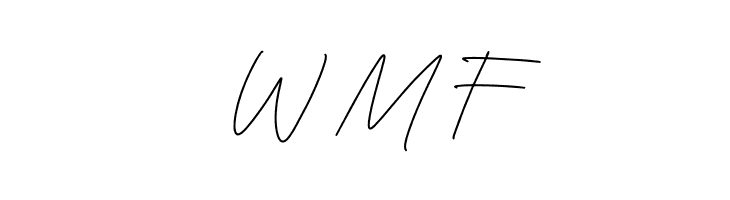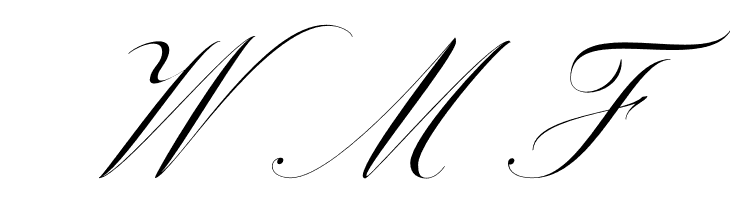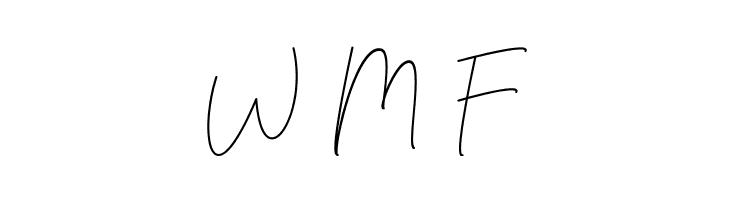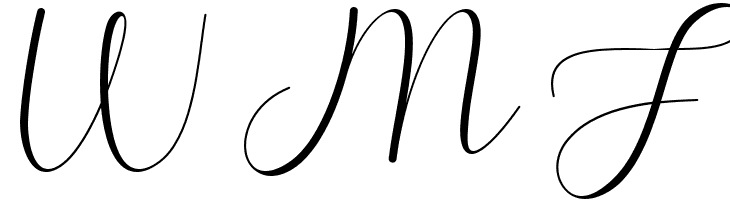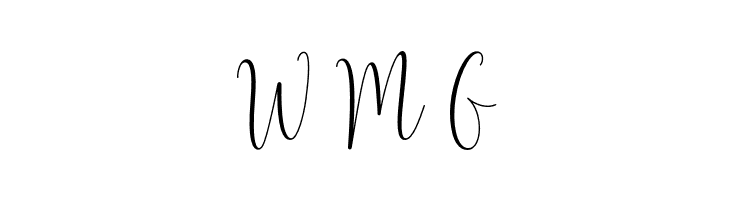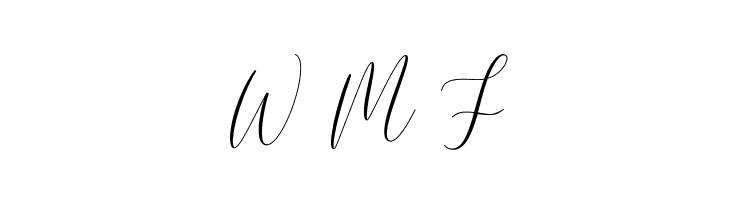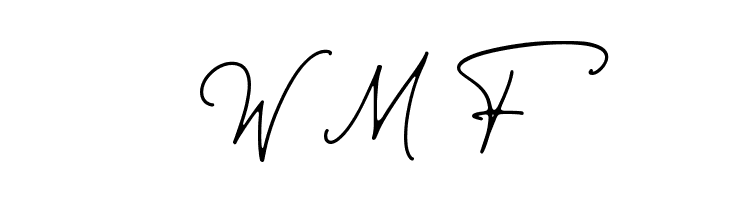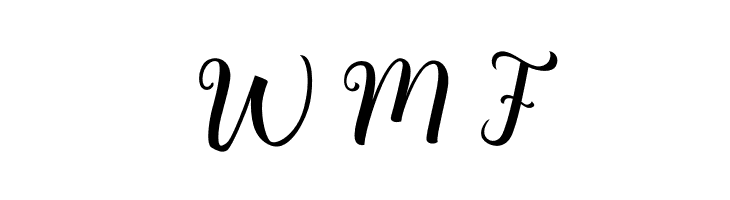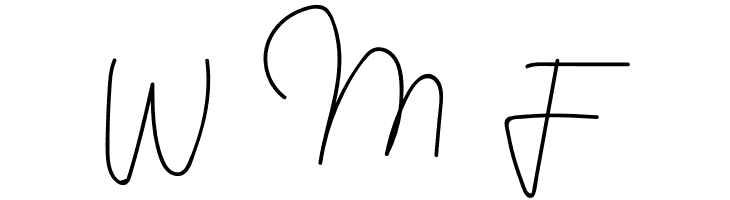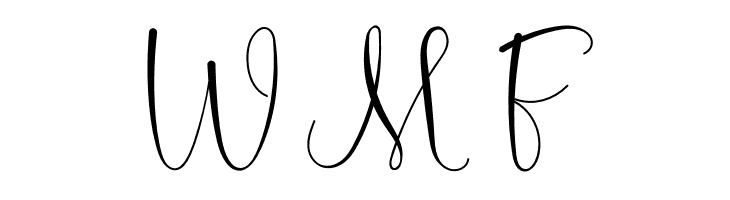
A graceful and flowing script font with elegant, cursive strokes.
A graceful, flowing script font with interconnected letters and elegant curves.
A graceful, handwritten script font with a fluid and elegant style.
A graceful and elegant script font with flowing, cursive letterforms.
An elegant script font with fluid, cursive strokes and graceful loops.
An elegant script font with graceful curves and delicate strokes, perfect for sophisticated designs.
A graceful and elegant script font with flowing, connected characters.
A graceful and elegant handwritten script with smooth, flowing curves.
A graceful and elegant script font with flowing, cursive strokes.
An elegant, flowing script font with interconnected, graceful curves.
A playful and elegant cursive font with fluid, graceful strokes.
A graceful script font with flowing, interconnected letters and elegant embellishments.
A graceful and elegant script font with fluid, connected strokes.
A graceful script font with flowing, interconnected characters.
An elegant, flowing script font with graceful loops and a handwritten feel.
A graceful, cursive font with elegant, flowing lines.
A graceful script font with flowing, connected strokes and a handwritten style.
An elegant and flowing script font with graceful loops and cursive strokes.
A graceful script font with flowing, cursive strokes and elegant loops.
A graceful and playful script font with elegant curves and artistic flair.
An elegant script font with flowing, interconnected letters and graceful swashes.
A fluid and elegant script font with graceful curves and subtle flourishes.
A fluid and elegant script font with smooth, flowing lines and graceful curves.
An elegant script font with flowing, cursive strokes and graceful curves.
A graceful and fluid script font with elegant, connected strokes.
A graceful and flowing script font with an elegant handwritten style.
A graceful script font with flowing, connected strokes and elegant flourishes.
An elegant, flowing script font with graceful curves and a sophisticated style.
An elegant, flowing script font with ornate and graceful letterforms.